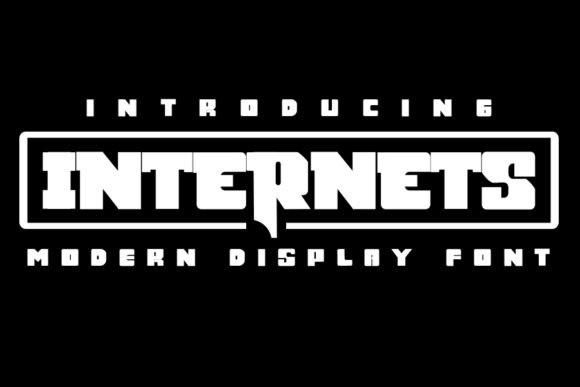
Unleash the Power of Expression with Internets Font: A Revolutionary Display Masterpiece
In the vast digital realm, where creativity knows no bounds, allow us to introduce you to Internets Font – a transcendent display font that will ignite your imagination and transform your designs into captivating masterpieces. Bold, modern, and defiantly chunky, Internets Font is not just a font; it's an experience that will leave an indelible mark on your audience.
With its commanding presence and unwavering charisma, Internets Font demands attention. Its striking letterforms, crafted with meticulous precision, exude an air of confidence and authority. Whether you're crafting logos, posters, social media graphics, or website designs, Internets Font will elevate your creations to new heights of visual impact.
Immerse yourself in the limitless possibilities that Internets Font presents. Its versatile nature effortlessly adapts to a wide spectrum of design aesthetics, from playful and whimsical to sleek and sophisticated. Unleash your creativity and let Internets Font guide you on a journey of self-expression.
So, why settle for ordinary when you can embrace the extraordinary? Embrace Internets Font today and unlock the gateway to a world of design possibilities. Let your imagination soar, let your designs captivate, and let Internets Font be your trusted companion on this creative odyssey.